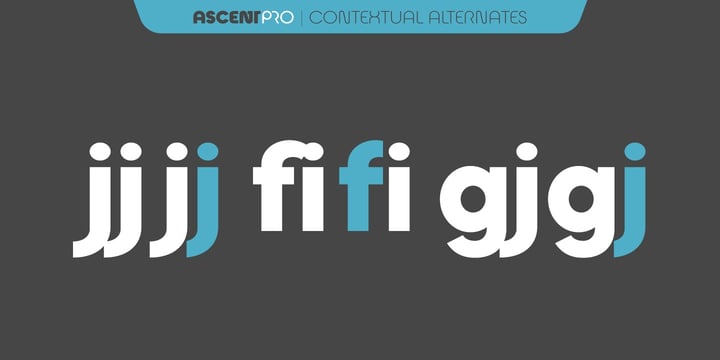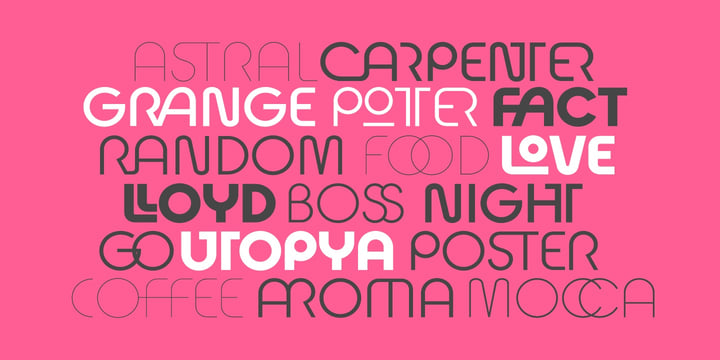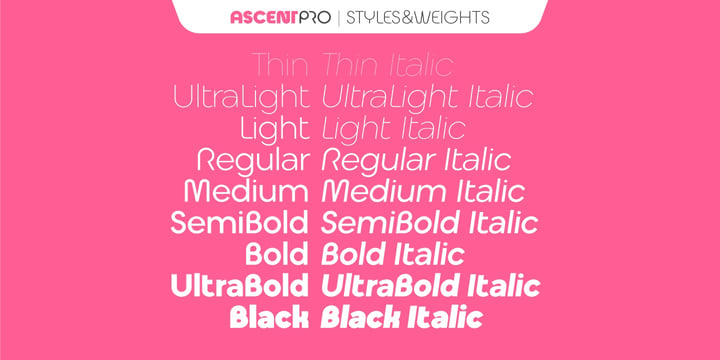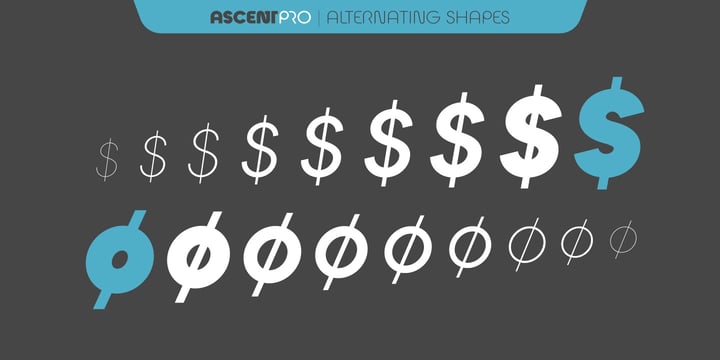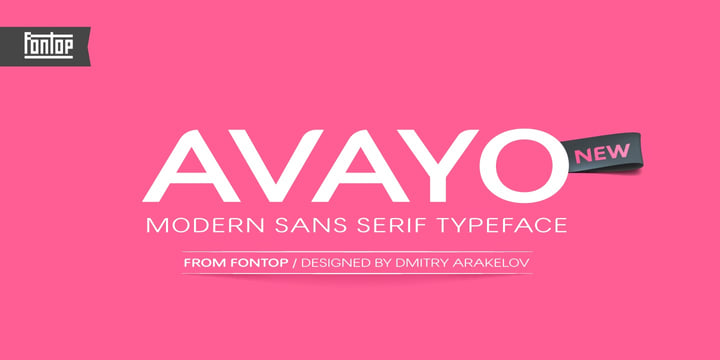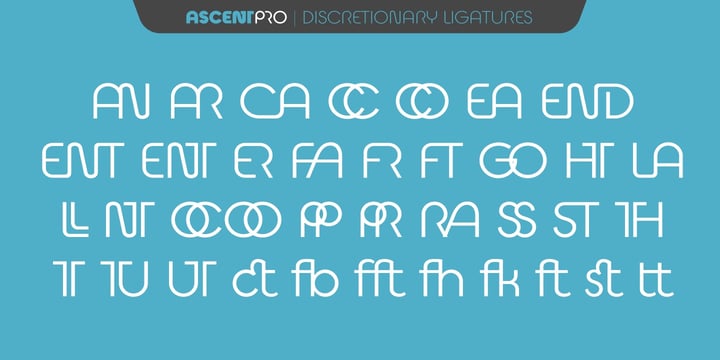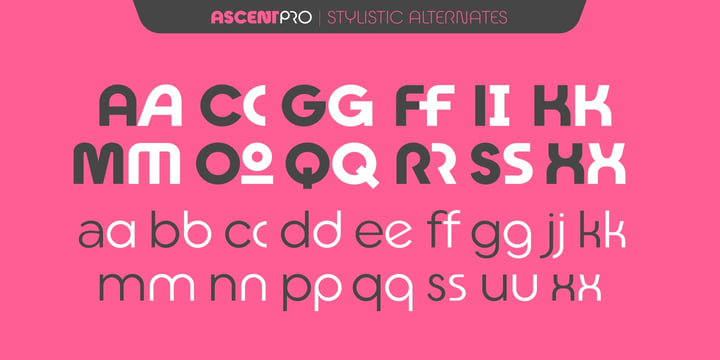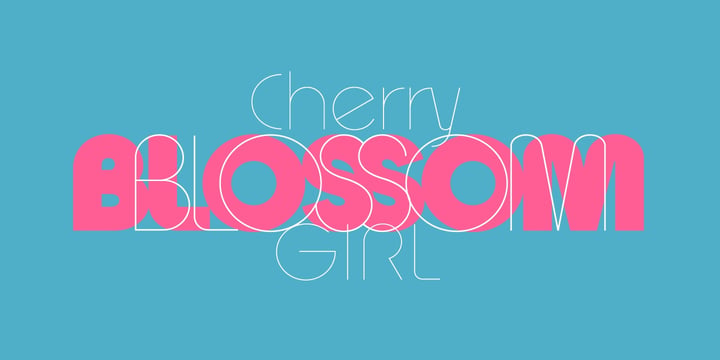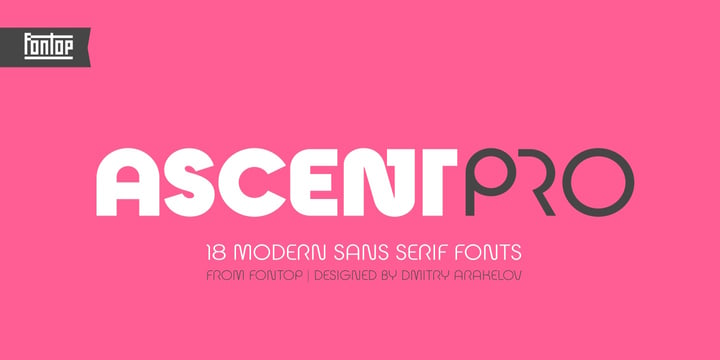
The Sans Edit
The Sans Edit is a curated mini-bundle featuring two distinct, modern sans-serif typefaces. Designed independently rather than as a traditional pair, each font brings its own unique character, clean lines, and contemporary aesthetic to the table. From striking headlines to clean UI and branding, this pack offers twice the versatility for your next creative project.